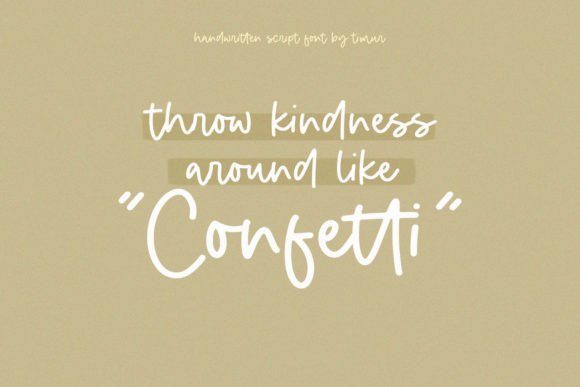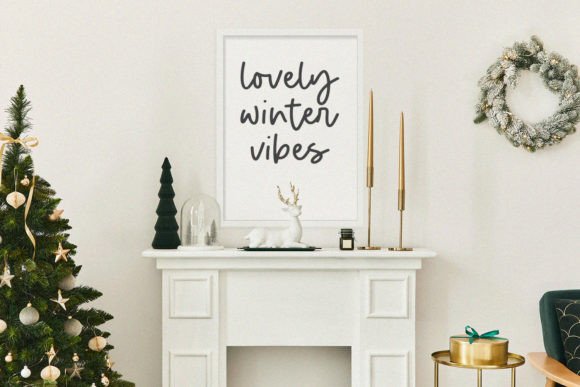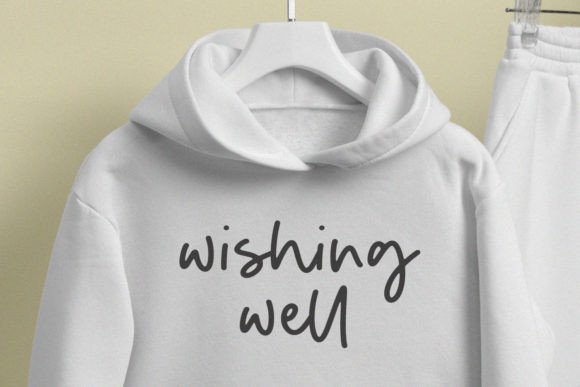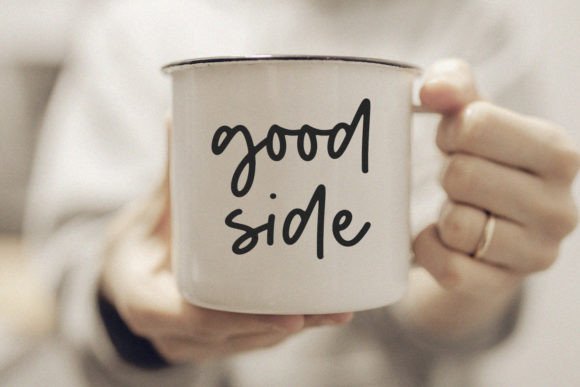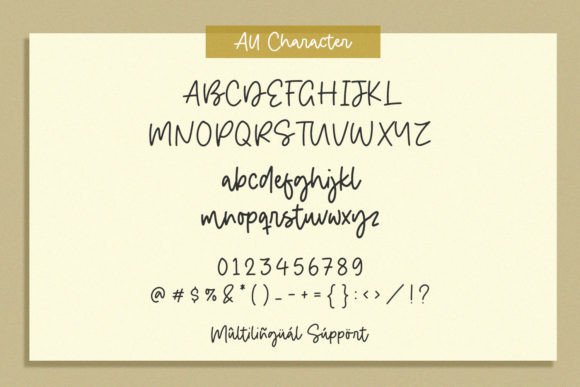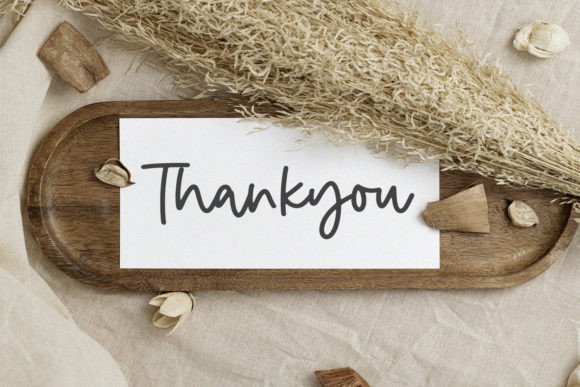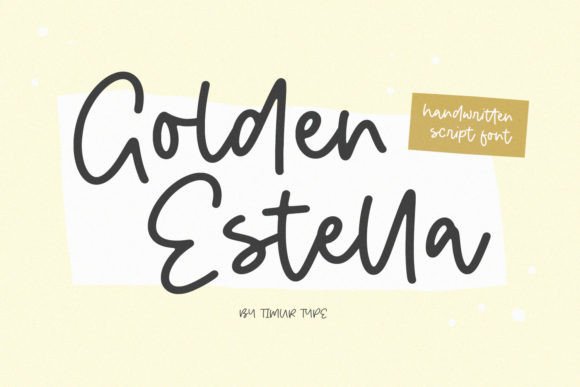
Introducing Golden Estella Font: Elevate Your Designs with Elegance and Sophistication
Are you tired of using the same old fonts in your designs? Look no further! We’re excited to introduce Golden Estella, a stunning font created with great care, especially for you! 😊 This beautiful font is perfect for a wide range of applications, from product packaging and branding projects to magazines, social media, weddings, and more.
The Story Behind Golden Estella
Golden Estella was crafted with love and attention to detail to provide designers and crafters with a unique and versatile font that can elevate their work. The font’s elegant and sophisticated design makes it ideal for projects that require a touch of luxury and glamour.
Key Features of Golden Estella Font
- Unique and Elegant Design: Golden Estella boasts a distinctive and refined design that will add a touch of sophistication to your projects.
- Highly Versatile: This font is perfect for a wide range of applications, from product packaging and branding projects to magazines, social media, and weddings.
- Easy to Read: Despite its elegant design, Golden Estella is highly legible, making it perfect for use in body text or headings.
- Scalable: This font is designed to look great at any size, from small captions to large headlines.
Use Cases for Golden Estella Font
Golden Estella is an incredibly versatile font that can be used in a variety of contexts. Here are some ideas to get you started:
- Product Packaging: Add a touch of luxury to your product packaging with Golden Estella. This font is perfect for labels, tags, and other packaging materials.
- Branding Projects: Establish your brand’s identity with Golden Estella. Use this font in your logo, business cards, and other marketing materials.
- Magazines and Editorial Content: Golden Estella is perfect for use in magazines, newspapers, and other editorial content. Its elegant design makes it ideal for headings, subheadings, and body text.
- Social Media: Elevate your social media presence with Golden Estella. Use this font in your graphics, captions, and other visual content.
- Weddings and Events: Add a touch of glamour to your wedding or event invitations, programs, and other materials with Golden Estella.
Tips for Using Golden Estella Font
Here are some tips to help you get the most out of Golden Estella:
- Pair with Other Fonts: Golden Estella looks great when paired with other fonts. Try pairing it with a clean sans-serif font for a striking contrast.
- Experiment with Colors: Golden Estella looks stunning in a range of colors. Experiment with different colors to find the perfect match for your project.
- Use it Sparingly: While Golden Estella is a beautiful font, it can be overwhelming if used excessively. Use it sparingly to create a striking visual impact.
Golden Estella is a stunning font that can elevate your designs with elegance and sophistication. Its unique and elegant design, versatility, and ease of use make it perfect for a wide range of applications. Whether you’re a designer, crafter, or DIY enthusiast, Golden Estella is sure to become a favorite in your font collection.